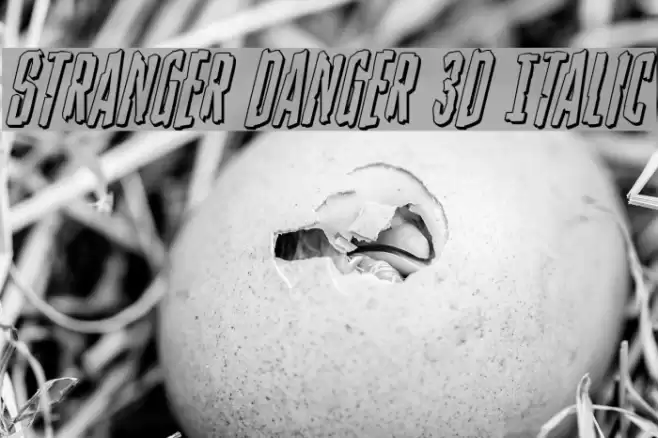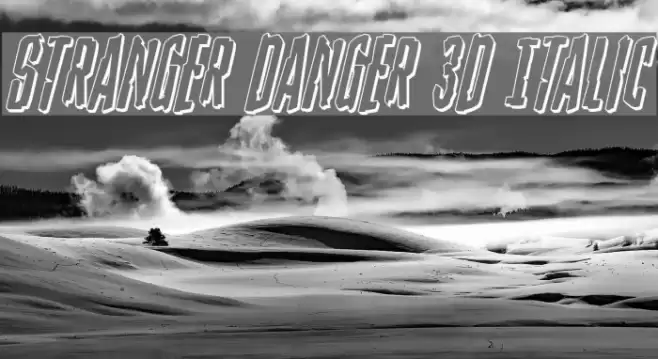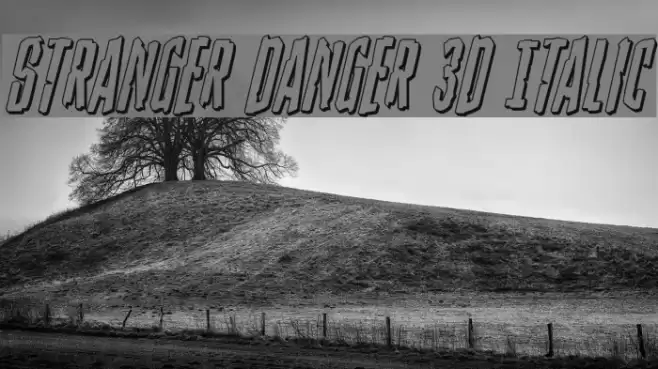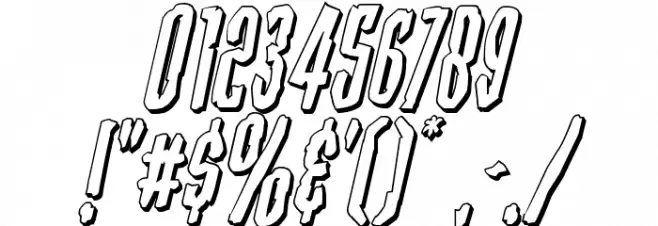
Stranger Danger 3D Italic Font
Stranger Danger 3D Italic Description
This font features a bold, three-dimensional design with an italic slant, giving it a dynamic and eye-catching appearance. The characters are outlined, creating a shadow effect that enhances the 3D illusion. The uppercase and lowercase letters maintain a consistent style, with sharp angles and clean lines. The numbers and special characters follow the same design principles, ensuring uniformity across all glyphs. This font's unique style makes it suitable for projects that require a strong visual impact.
A bold, 3D italic font with sharp angles and a shadow effect from Uncategorized fonts.
- Proposed Projects: Ideal for posters, video game graphics, comic book titles, and any project needing a striking, modern look.